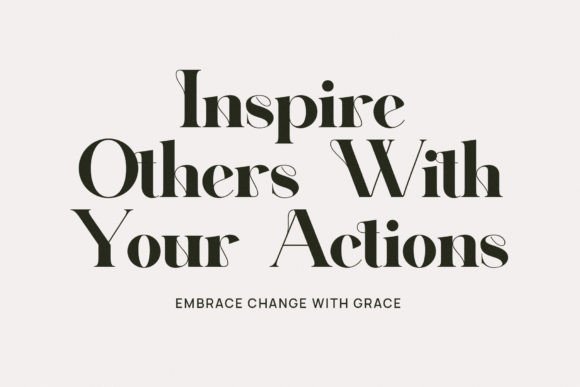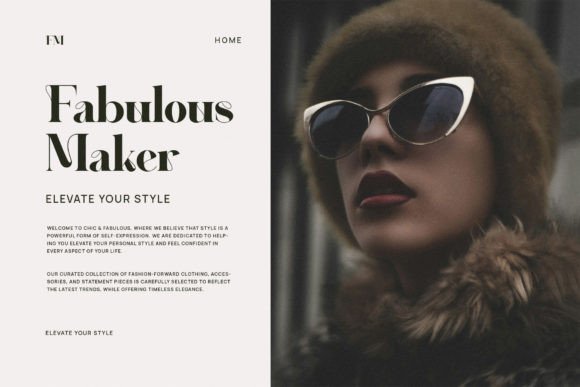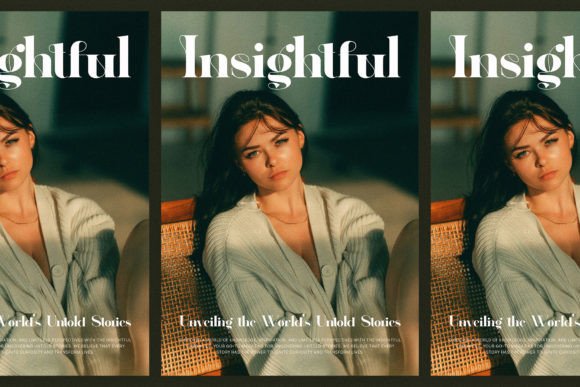
Introduction to Mringan Font
Mringan is a stylish and fashionable serif typeface designed for the modern designer.
Its sleek lines and elegant curves exude sophistication, making it perfect for editorial layouts, branding, and luxury packaging With its versatility and timeless appeal, Mringan adds a touch of class to any design project.
Why Choose Mringan Font?
Mringan Font offers exceptional quality and versatility, making it a valuable addition to your design toolkit. Whether you’re creating for personal projects or commercial use, Mringan Font delivers professional results.